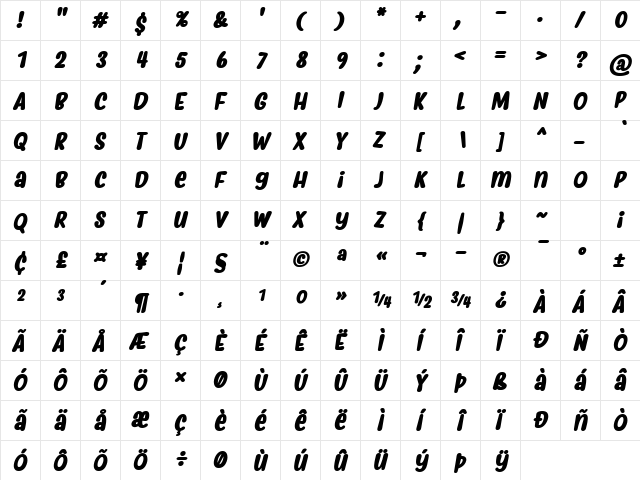
Myfrida Bold Italic
| Foundry | 7NTypes |
| Designer | Situjuh Nazara |
Design Context for Myfrida Typeface
Myfrida is a composed and adaptable typeface that performs quietly and consistently across a wide range of design contexts. The dynamic lean of this cut emphasises speed and emphasis in any layout. Its bold stroke weight gives it real presence on the page.
Pro Tip: Use Myfrida for emphasis, pull quotes, and subheadings where its slanted energy can add rhythm to the layout.